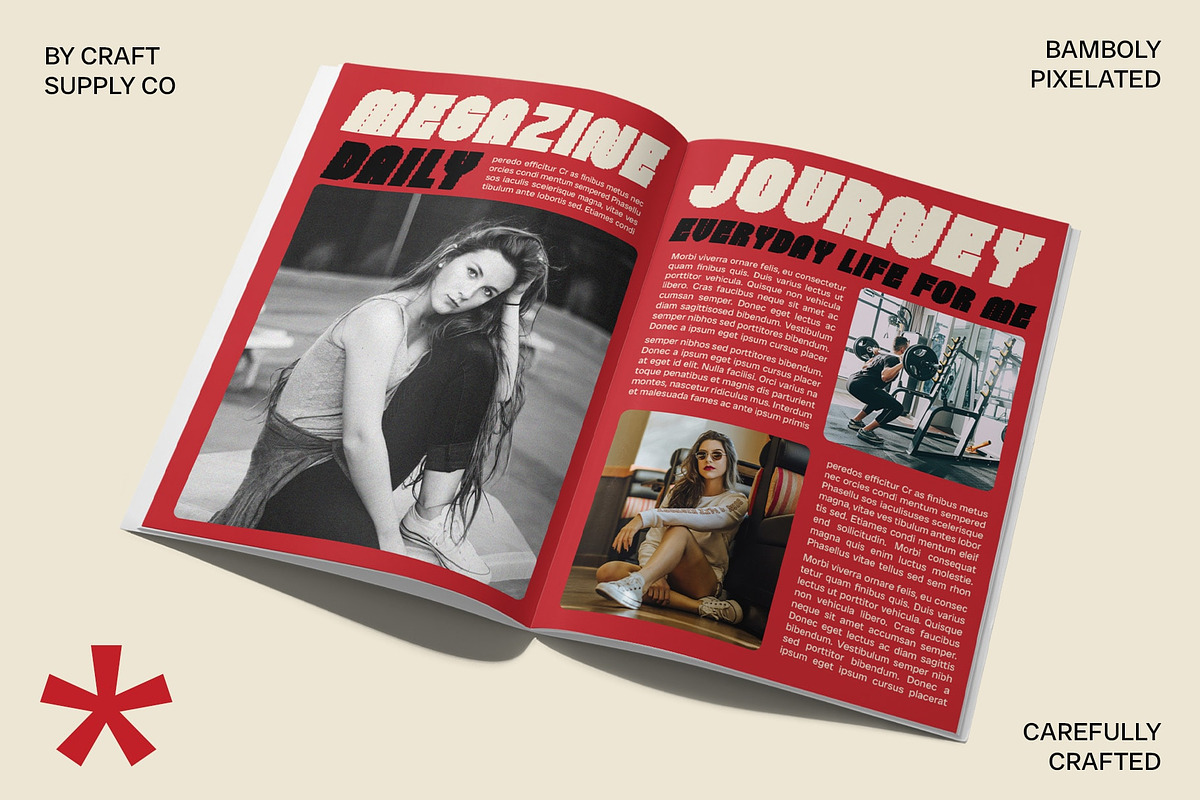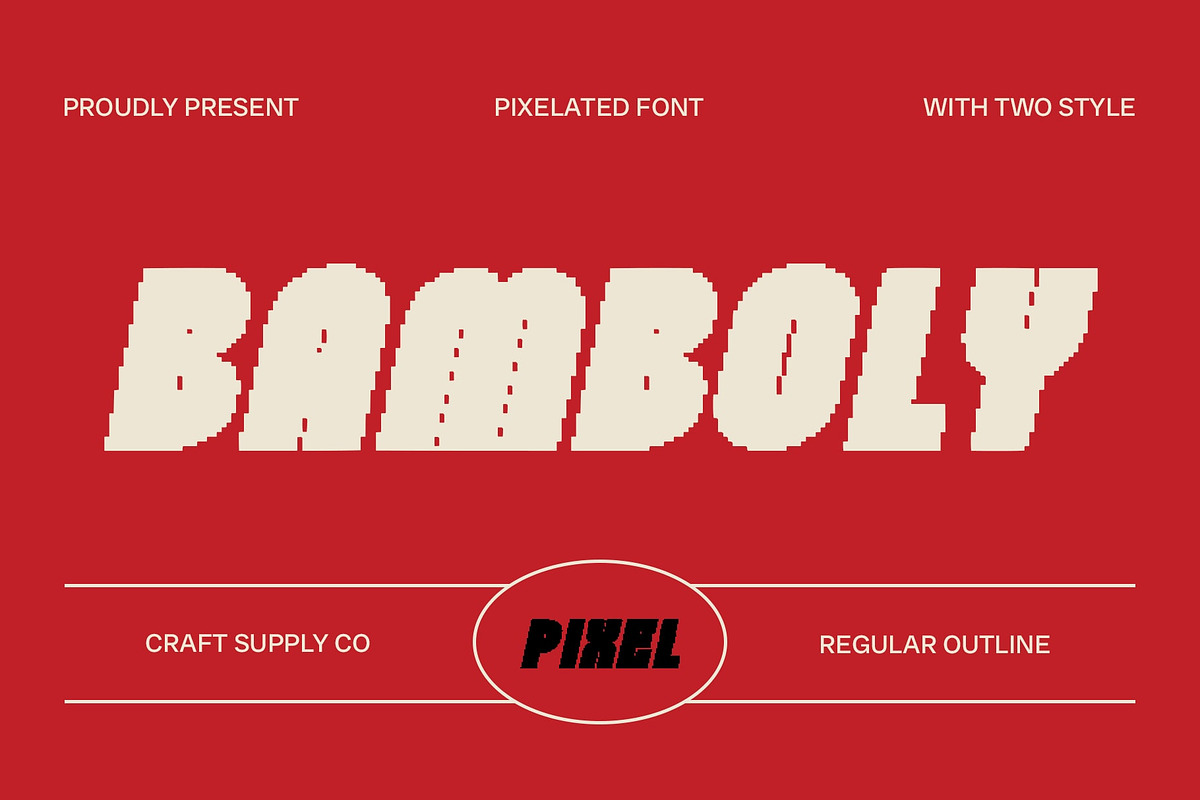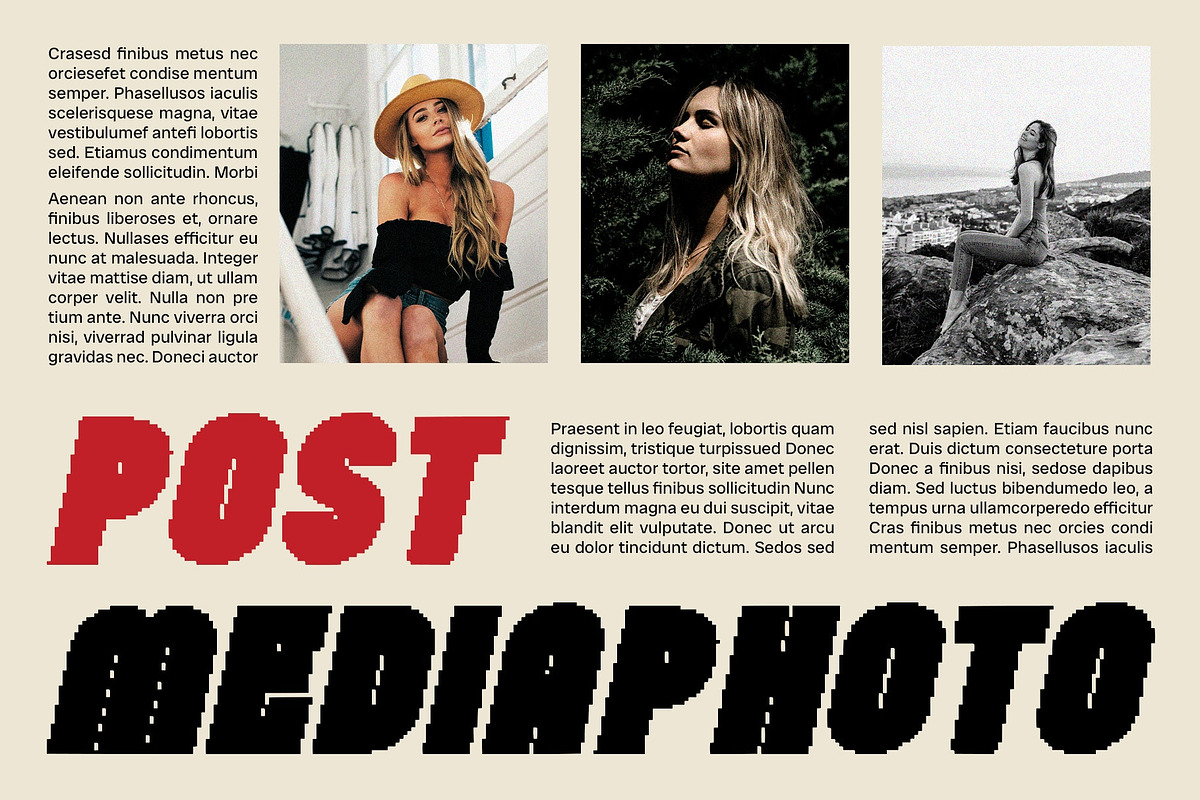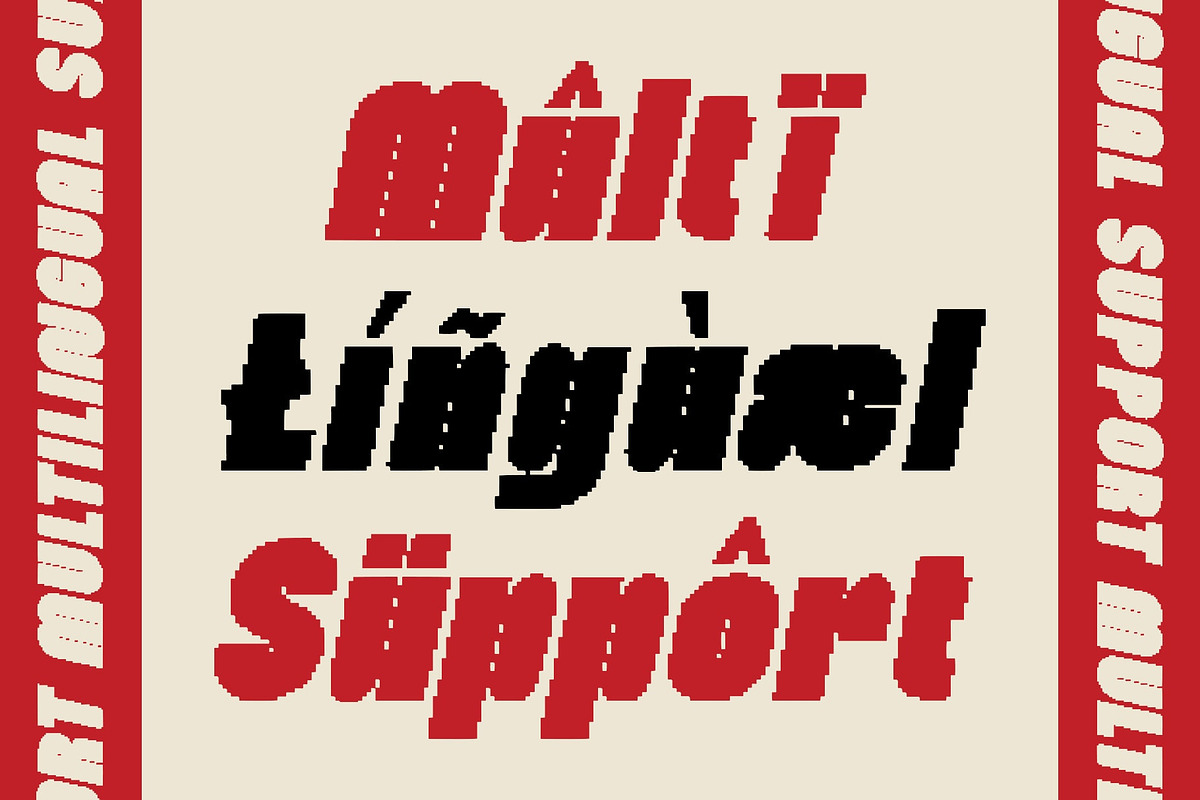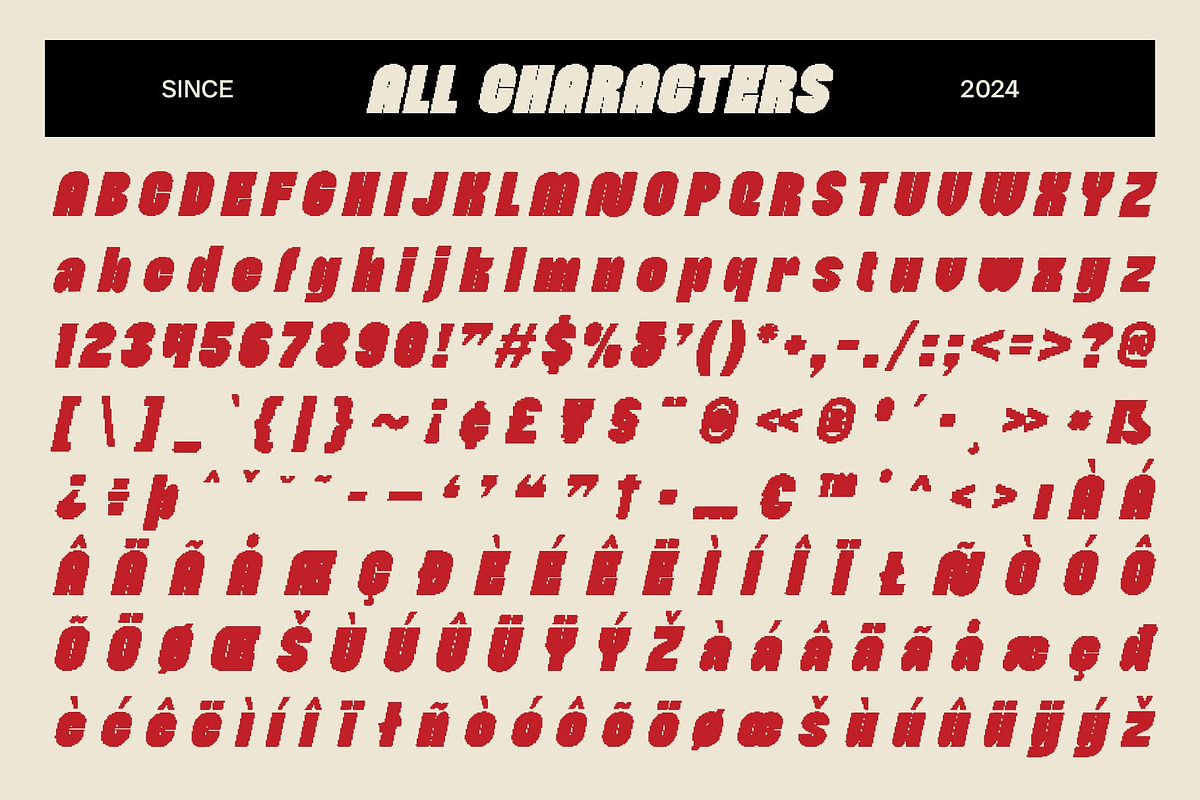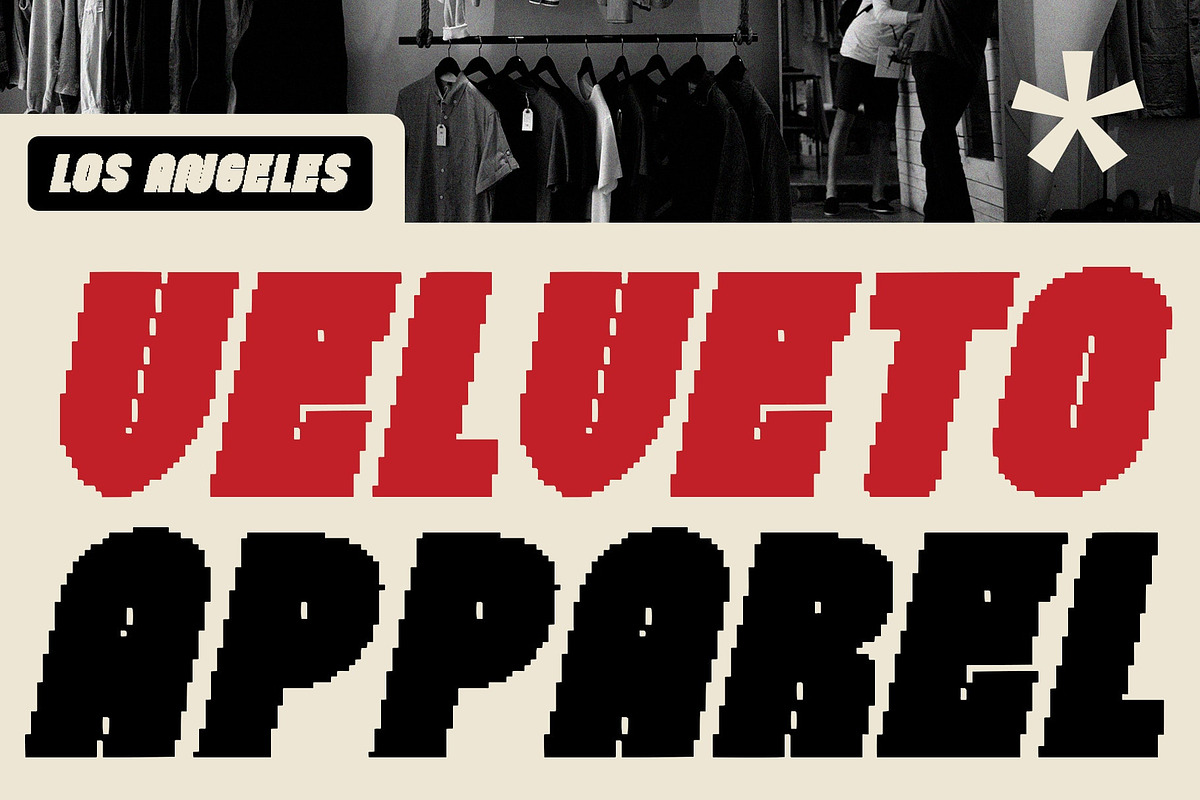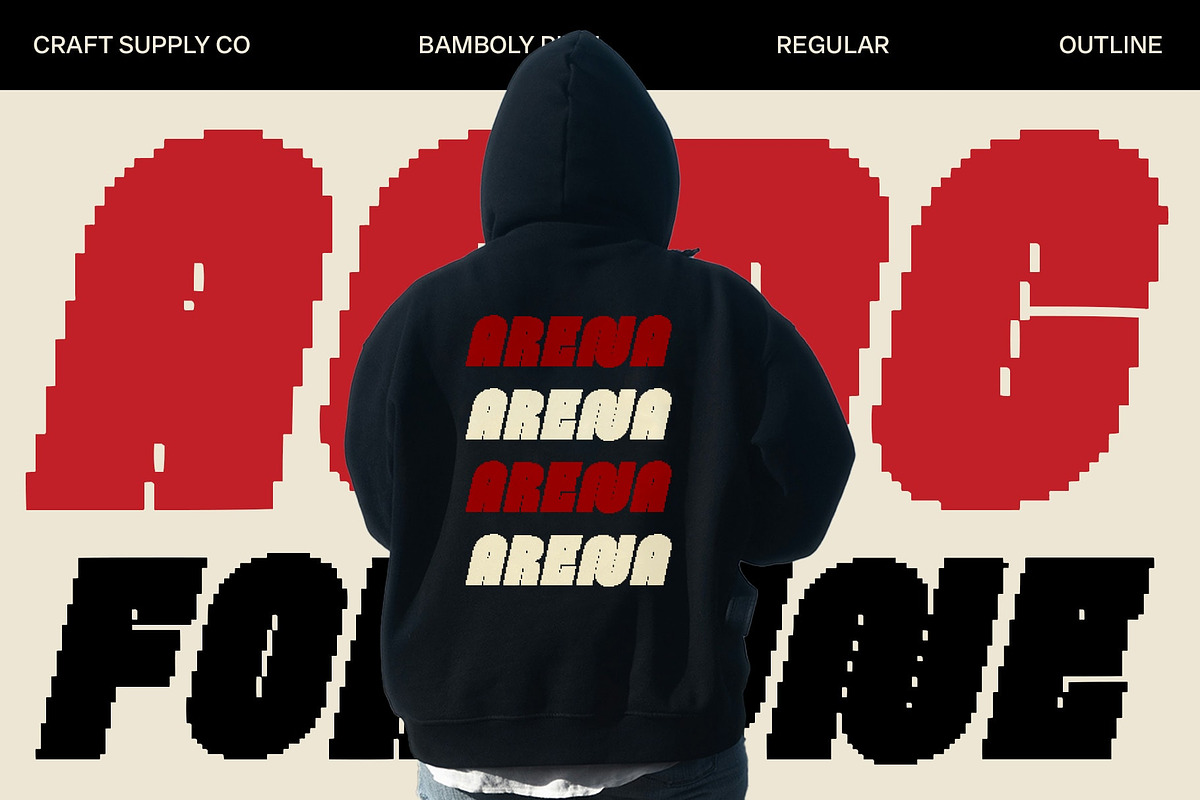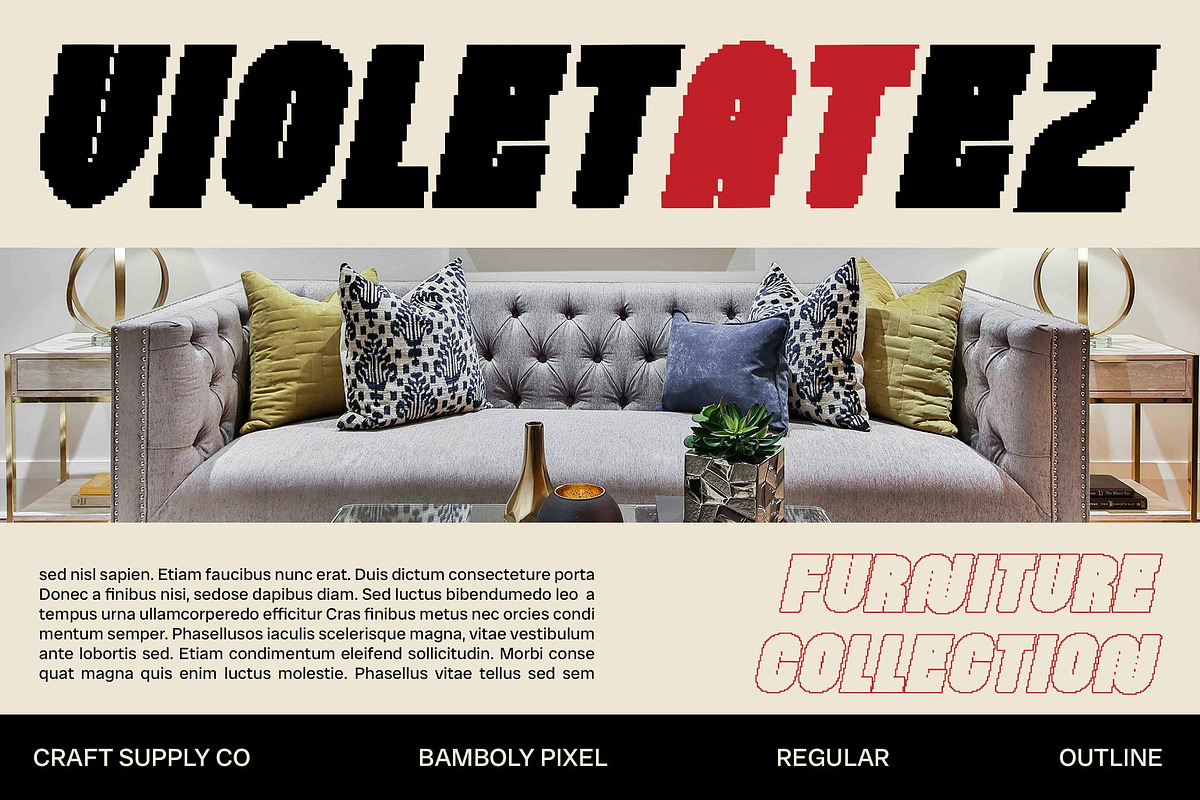
Bamboly Pixel
Bamboly Pixel: Bold Sans-Serif Font with Pixel Effect
Prominent Thick Lines with Pixelated Details
Bamboly Pixel is a sans-serif font characterized by its bold form and pixel effect, featuring prominent thick lines often complemented by pixelated details. This combination adds a digital or textured appearance to the font, enhancing its visual impact.
Emphasize Modernity and Technology
Ideal for designs aiming to emphasize modernity and technology, Bamboly Pixel adds a unique touch with its pixel aesthetics that captivate attention. Whether used in poster designs, large titles, or branding, this font conveys a strong and contemporary impression that resonates with audiences.
Versatile Usage Across Designs
With its bold and distinctive appearance, Bamboly Pixel is versatile for various design applications. From digital interfaces to promotional materials, this font ensures readability while infusing a sense of innovation and creativity into your projects.
Captivate with Pixel Aesthetics
Capture attention and intrigue viewers with Bamboly Pixel’s pixelated details that provide a modern and textured look. Perfect for designers seeking to make a bold statement with a touch of digital flair, this font stands out in both digital and print contexts, making your message visually compelling.